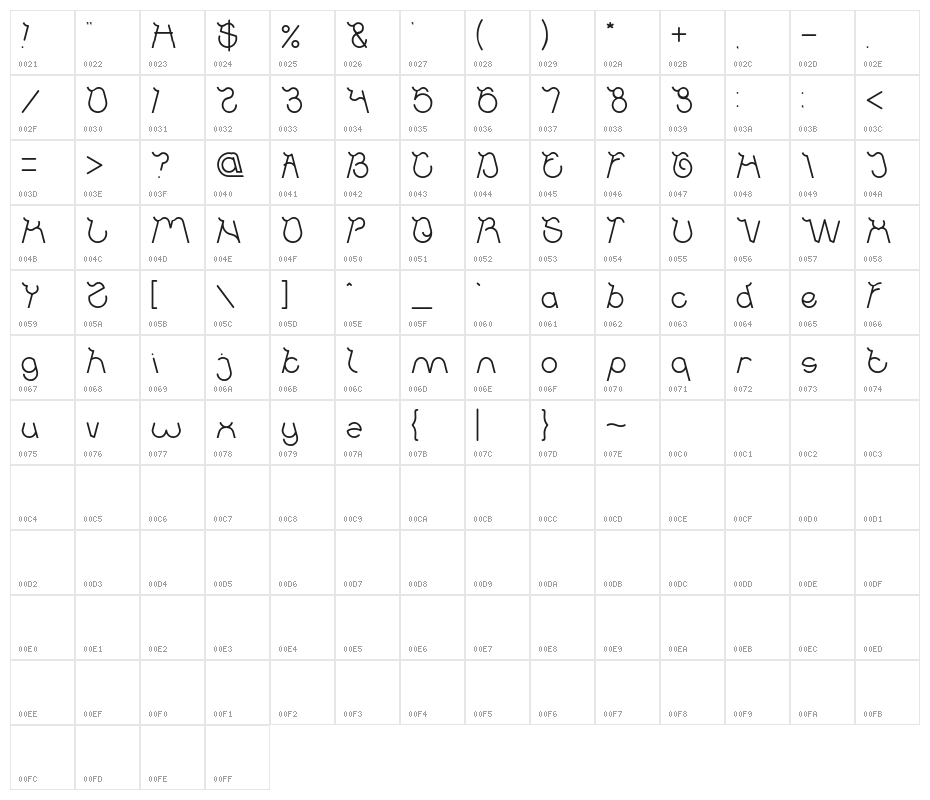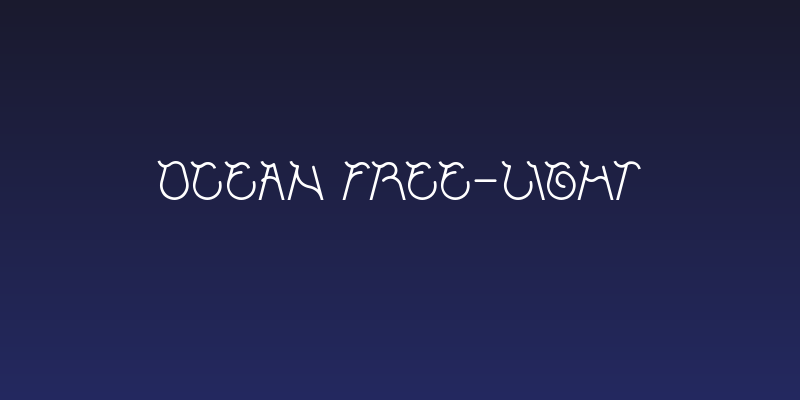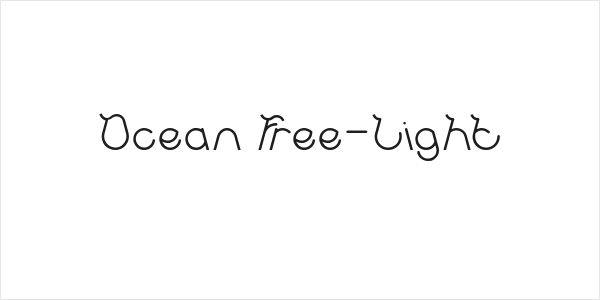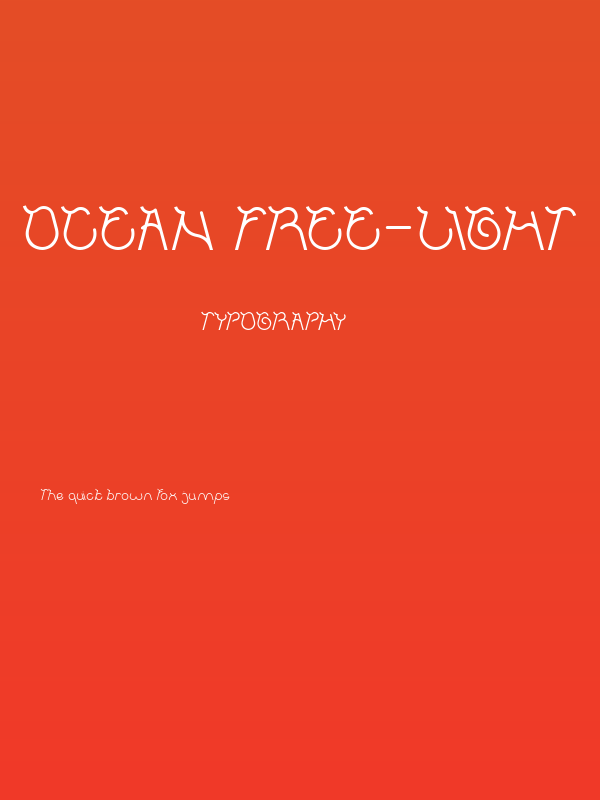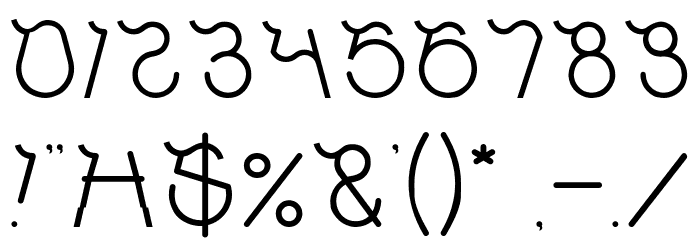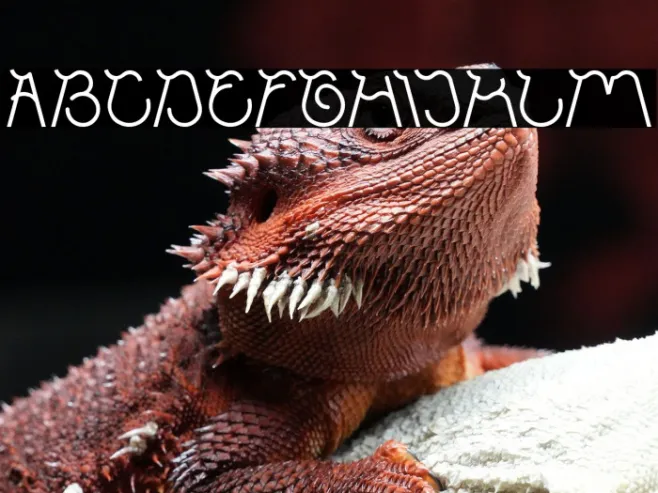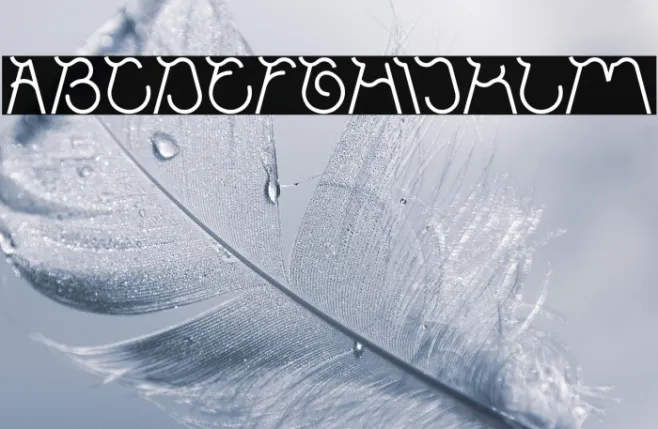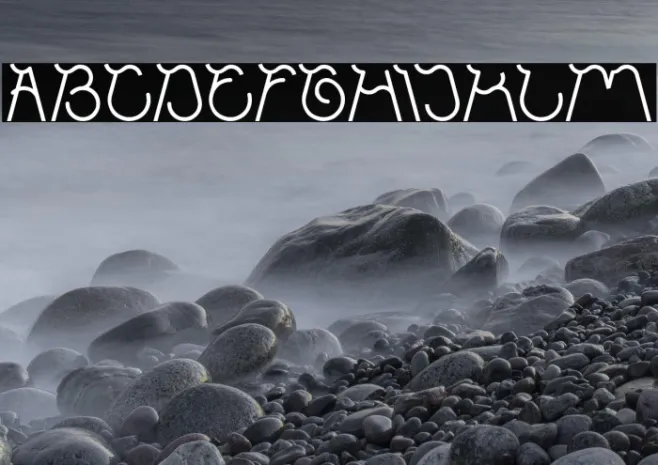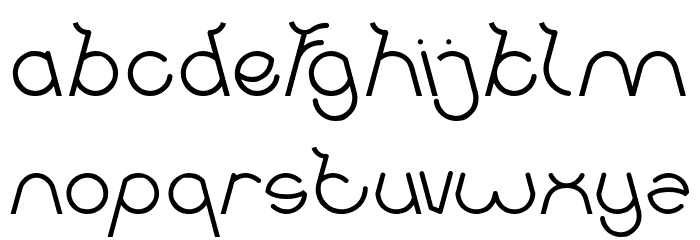
Ocean Free-Light Font
Ocean Free-Light Description
This font features a whimsical and playful design with a unique, hand-drawn appearance. Each character is crafted with a sense of movement and fluidity, resembling ocean waves or flowing water. The strokes are smooth and rounded, giving it a friendly and approachable feel. The uppercase letters have a distinct, artistic flair, while the lowercase letters maintain a consistent style that complements the overall design. Numbers and special characters follow the same playful aesthetic, making this font versatile for creative projects.
| Overall Style | Playful, Artistic |
| Proposed Projects | Ideal for children's books, creative branding, playful posters, and artistic invitations. |